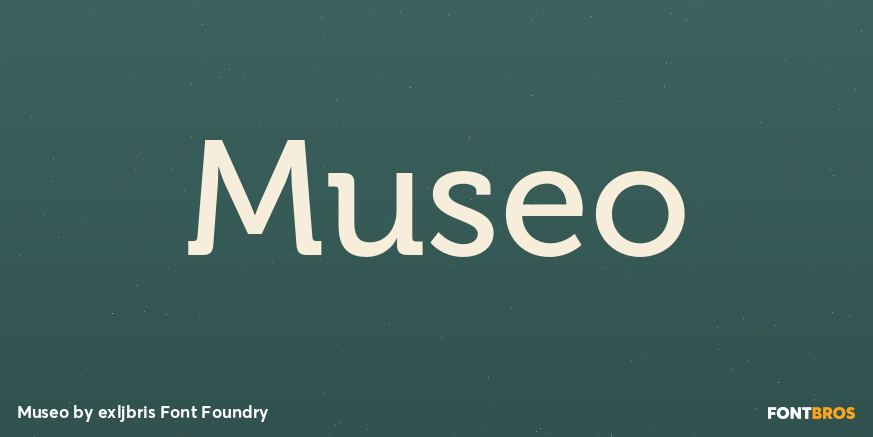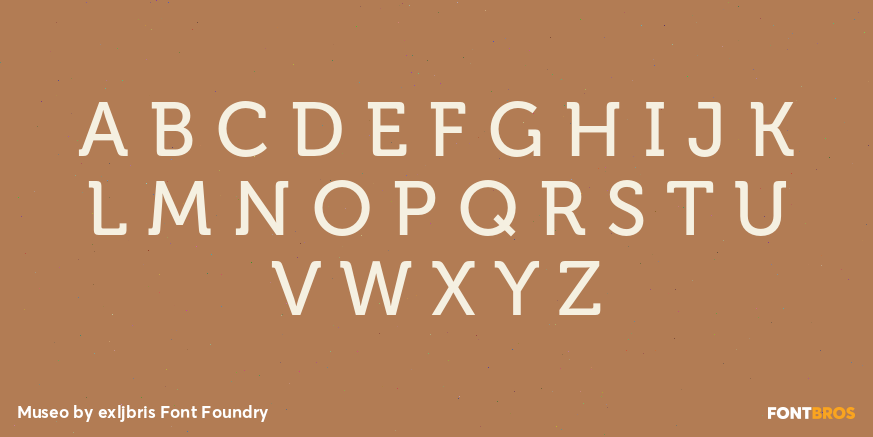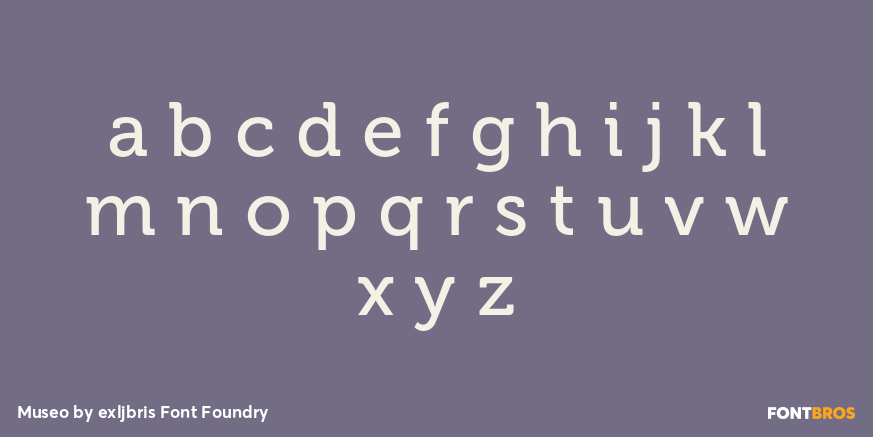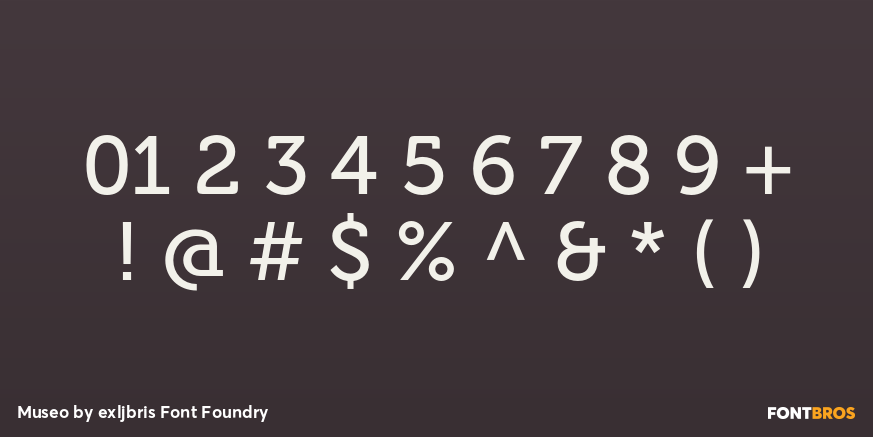
Museo
Font Family by exljbris Font Foundry
Museo... it all started with my love for the letter 'U'. This uppercase letter just came to me as an image in a daydream. The top of both stems bent into semi-slab serifs. From this principle I worked out the rest of the uppercase letters. My first intention was to make it an all-caps display font, but after a while, I changed my mind. I wanted it to be a bit more versatile, so I decided to add lowercase and adjust spacing and kerning to increase legibility.
This OpenType font family comes in five weights, and each weight comes with support for CE languages, even Esperanto. Besides ligatures, contextual alternatives, stylistic alternates, fractions and proportional/tabular figures, Museo has a 'case' feature for case-sensitive forms.